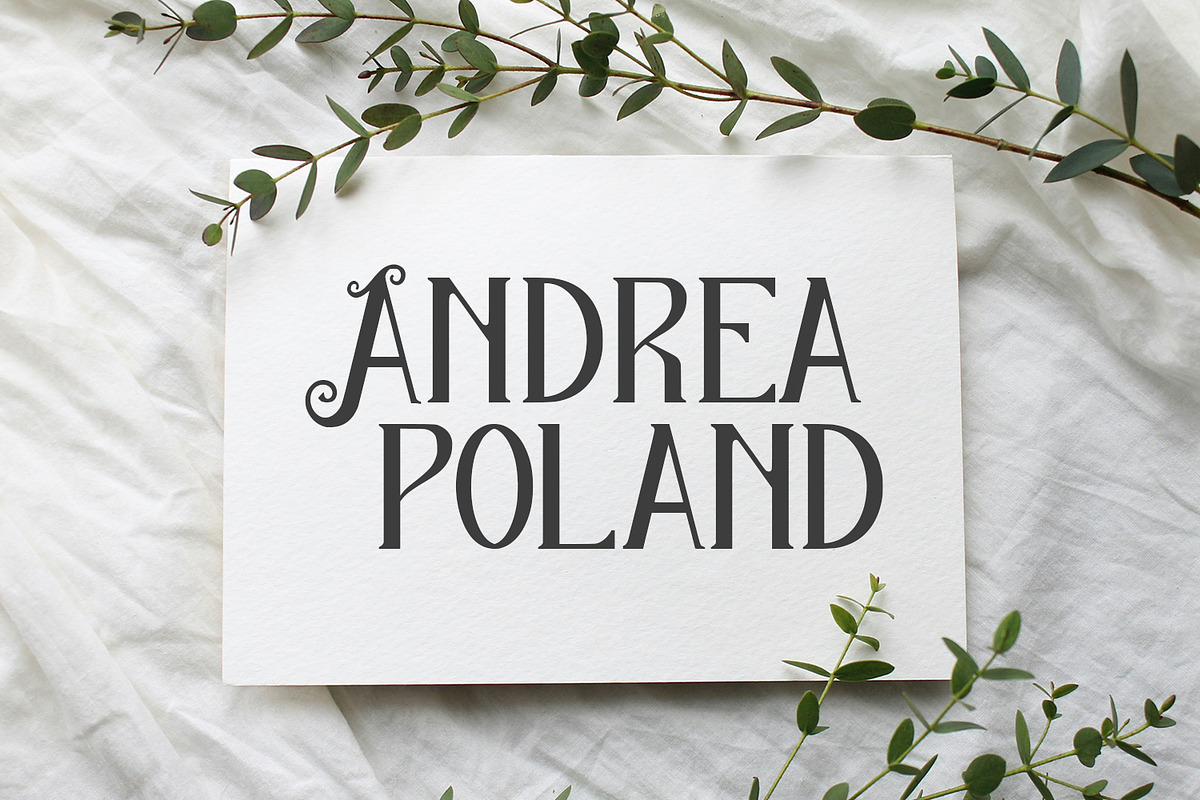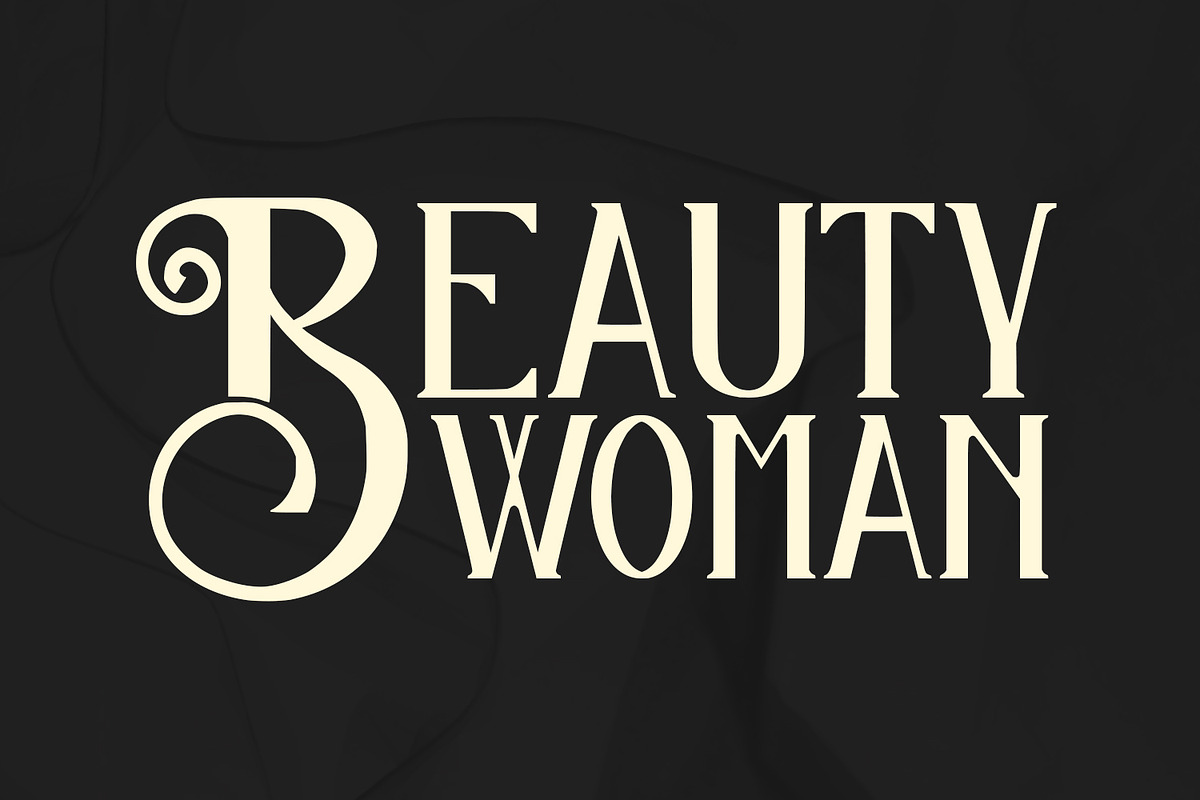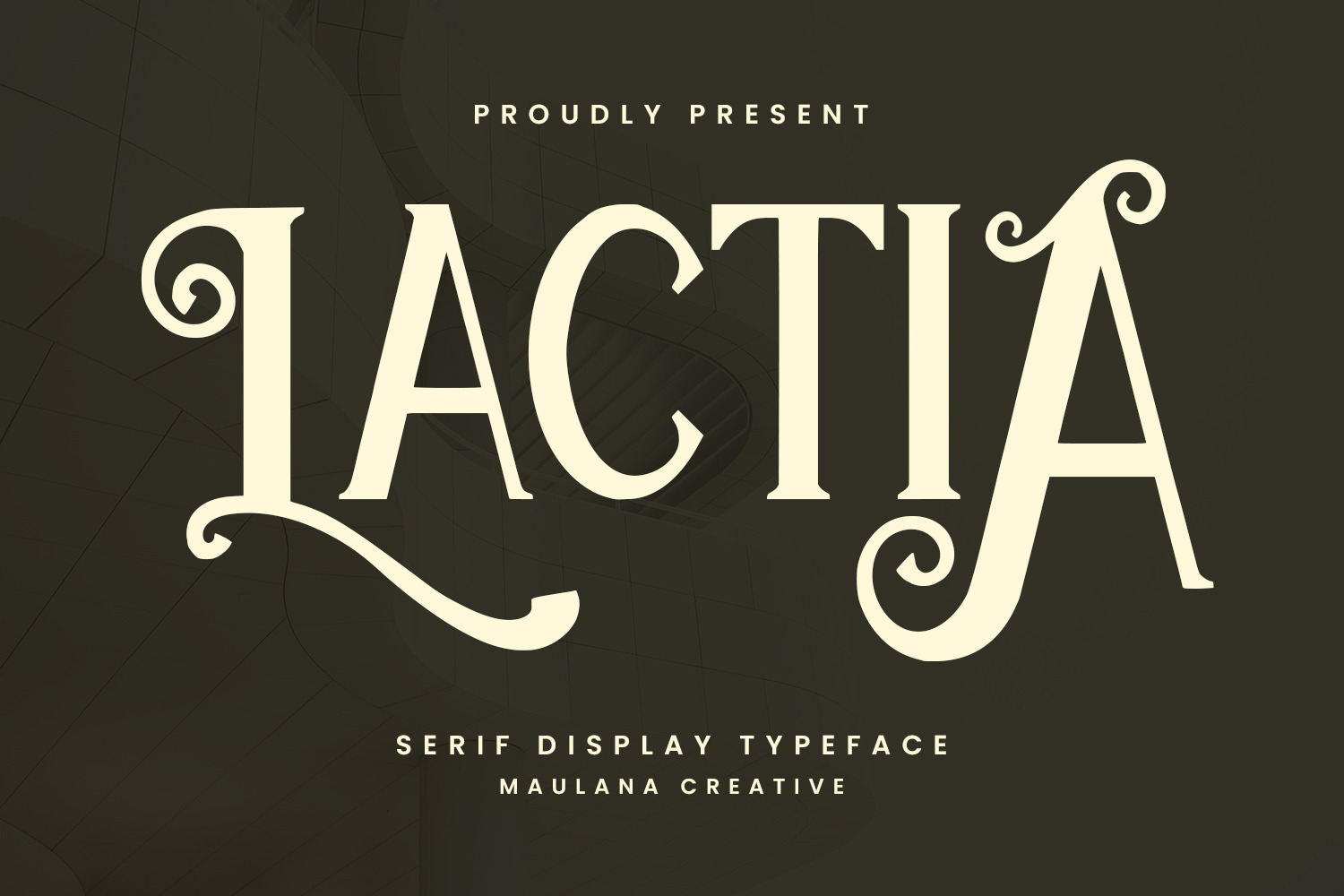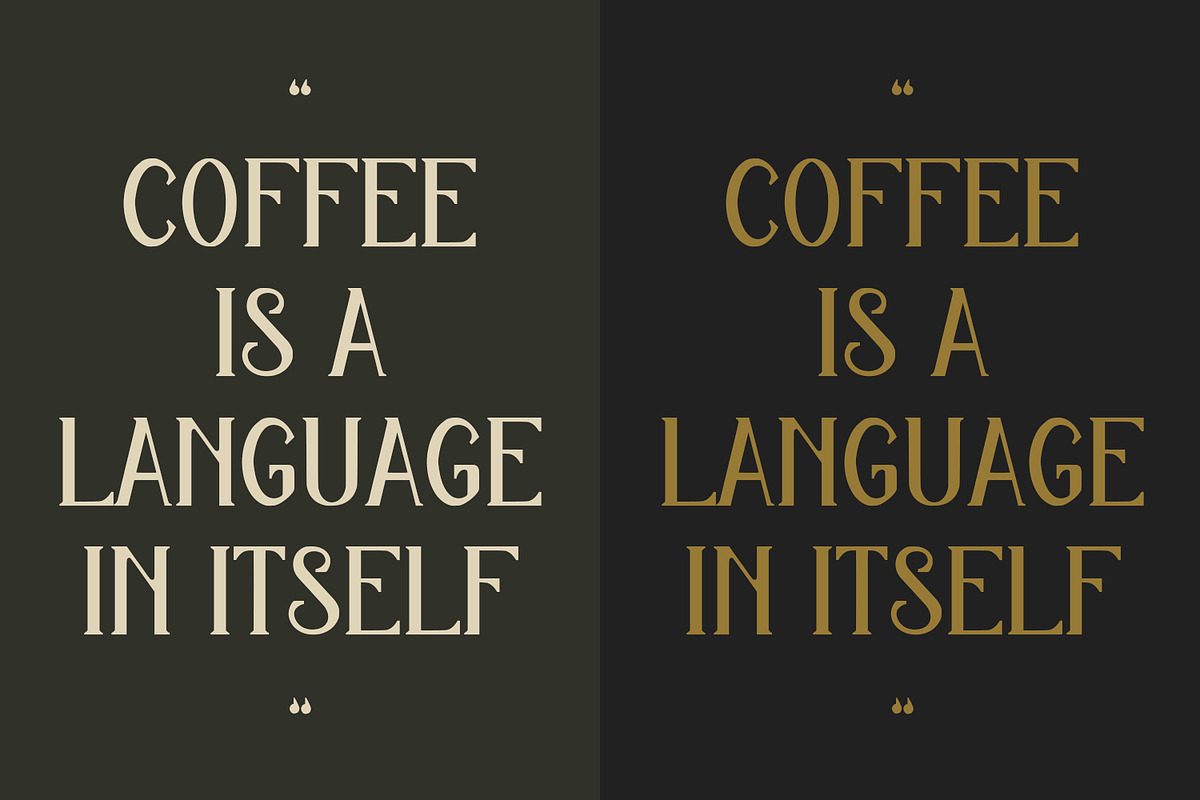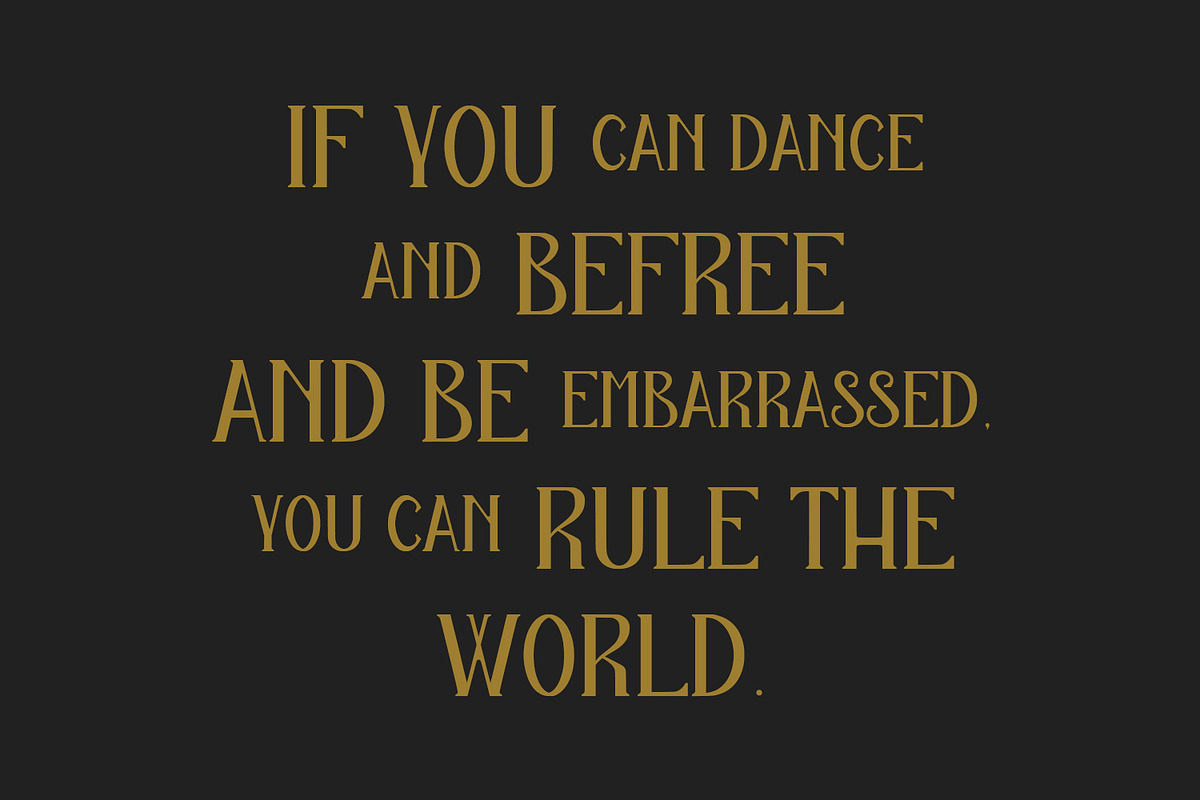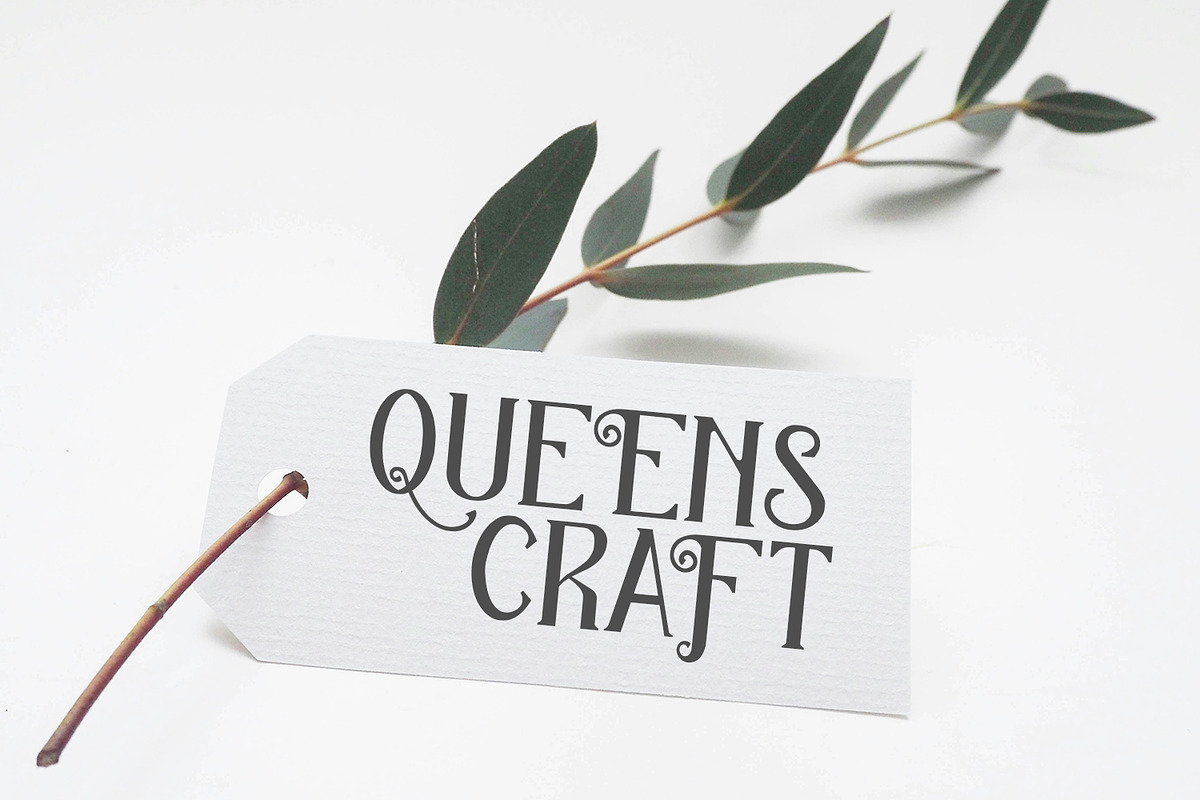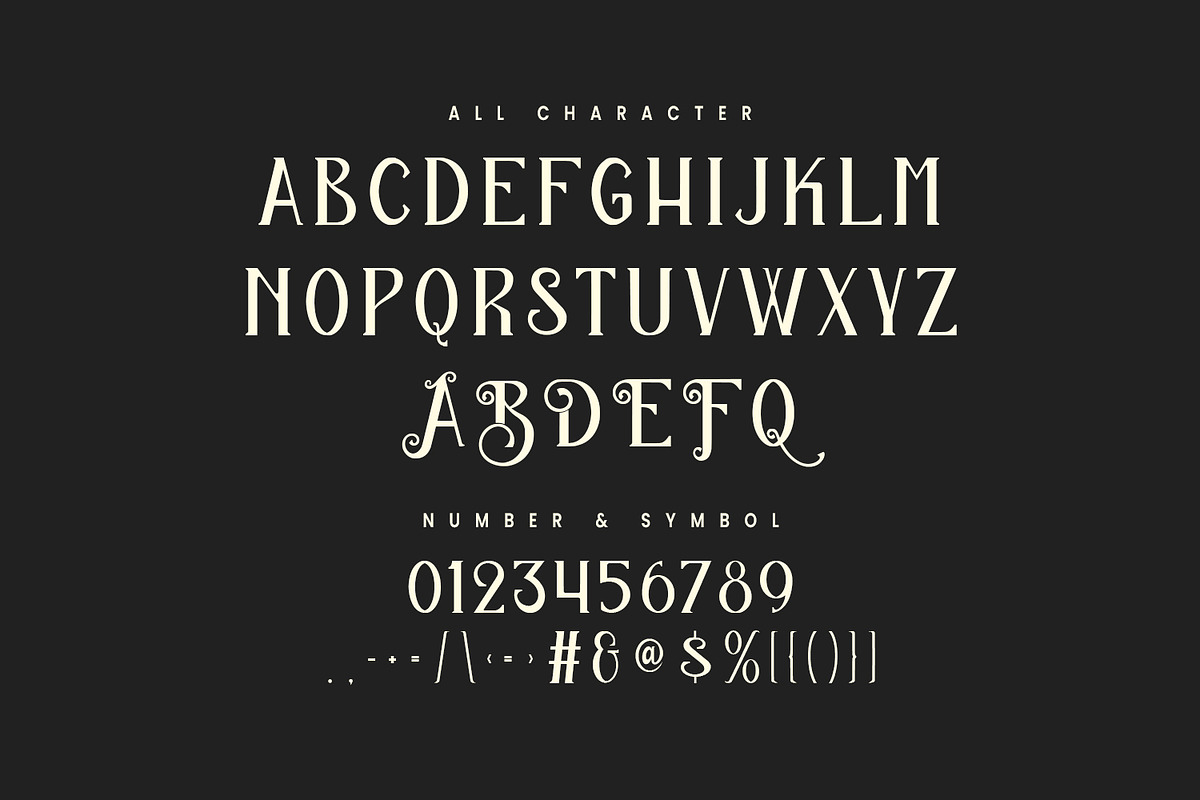
Lactia Serif Display Typeface
Lactia is a modern display serif font. With Bold low contrast stroke, fun character with a bit of ligatures and alternates. To give you an extra creative work. Lactia font support multilingual more than 100+ language. This font is good for logo design, Social media, Movie Titles, Books Titles, a short text even a long text letter and good for your secondary text font with script or serif. Make a stunning work with Lactia font.